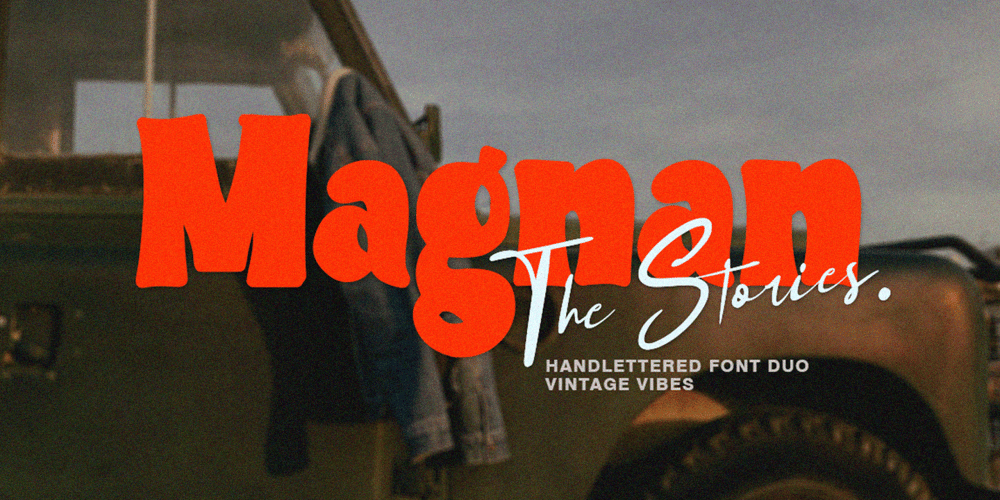
Magnan The Stories Font Family was designed by Andri Kurniawan and published by Struggle Studio. Magnan The Stories contains 2 styles and family package options. Magnan The Stories – combines the elegance of handwritten style with modern legibility. Script Fonts offer personal and expressive artistic curves, while Sans Fonts have clean, minimalist lines, ensuring text remains clear and professional. This combination creates a warm, creative, yet easy to read design, ideal for branding, invitations or promotional materials that want a balance between personal touch and simplicity.